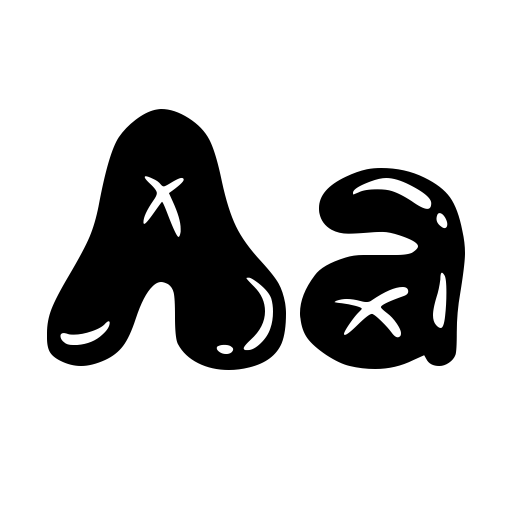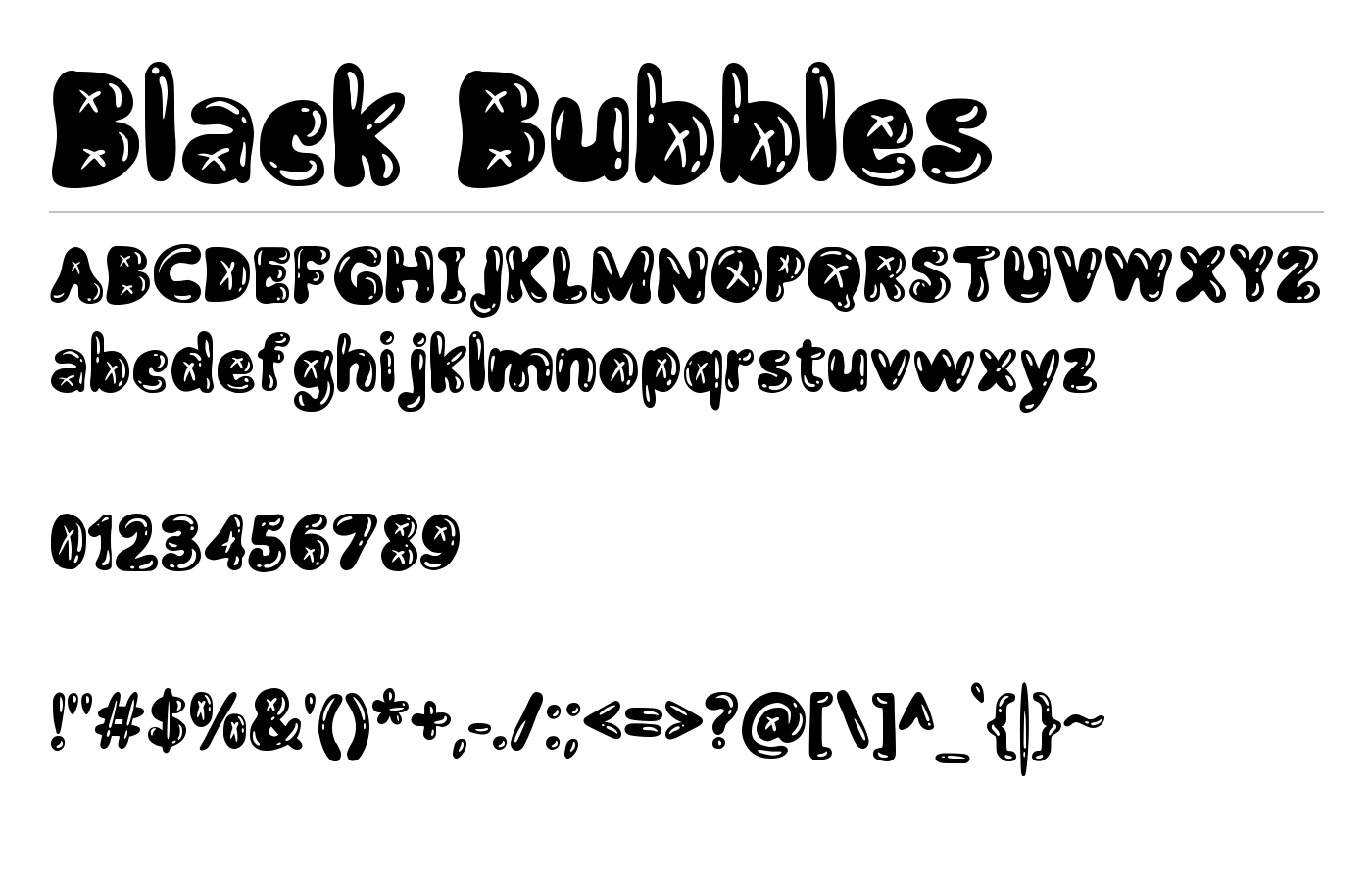
Black Bubbles is a playful and bold display font with a bubbly, rounded style and thick strokes that give it a fun, cartoon-like appearance. Featuring quirky details such as irregular shapes and crossed lines inside the characters, it adds a lively and whimsical touch perfect for informal and creative designs. This font works best for eye-catching headlines, children’s materials, posters, and any project that aims to convey energy and joy.
Black Bubbles Font
About Black Bubbles Font